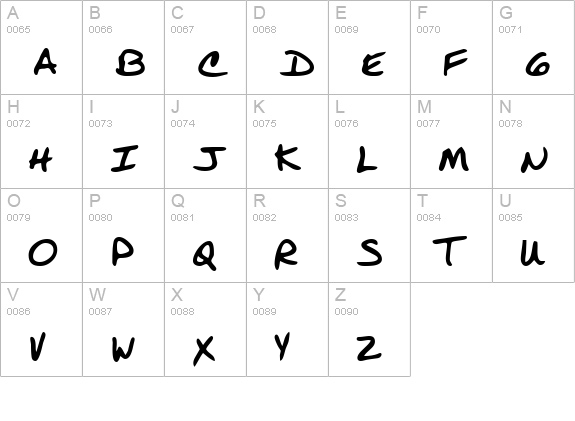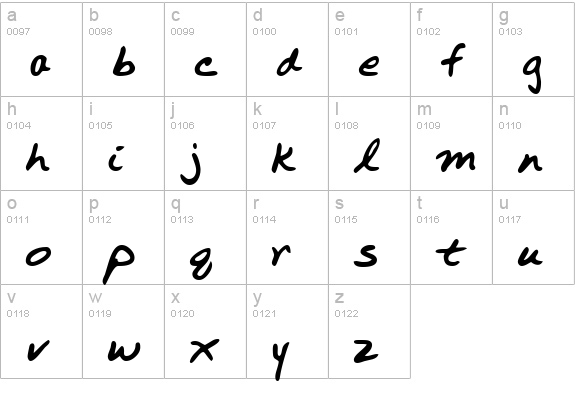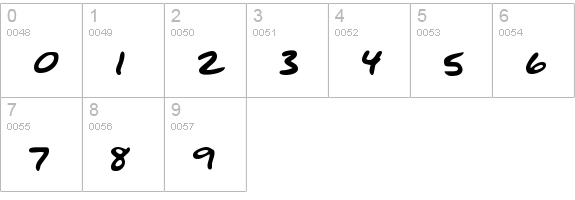
RustysHand Regular Font Details
RustysHand Regular is the standard, neutral variant in the RustysHand typeface family \xE2\x80\x94 well suited to general body text, paragraphs, and standard typographic work.
RustysHand Regular font is a charming and versatile typeface that exudes a rustic and handcrafted aesthetic. Its unique hand-drawn style gives a personal touch to any design project, adding warmth and character. The irregular lines and rough edges of RustysHand Regular font create a distinctive look that is perfect for adding a homemade feel to invitations, posters, logos, and more. Best of all, RustysHand Regular font is available for free download at FontsMarket.com. This means you can easily access this beautiful font to enhance your creative projects without any cost. Don't miss out on the opportunity to use RustysHand Regular font to bring a touch of artisanal flair to your designs. Download it today and let your creativity shine with this one-of-a-kind typeface.